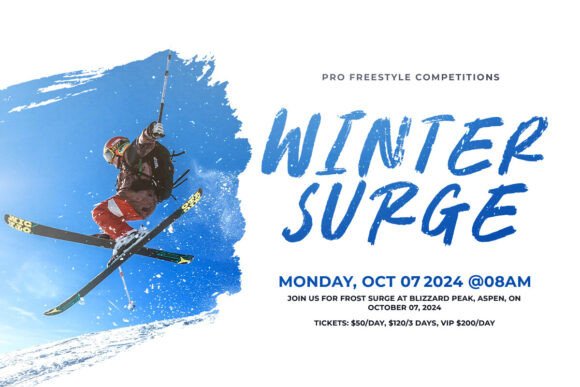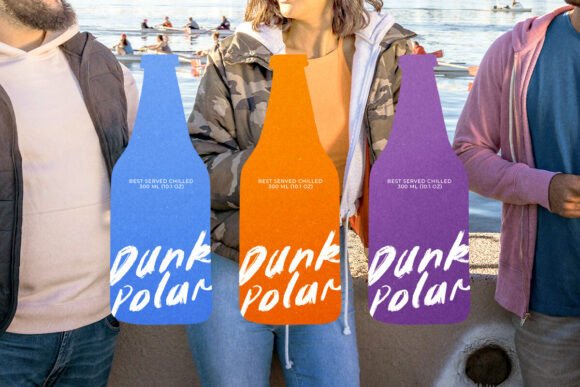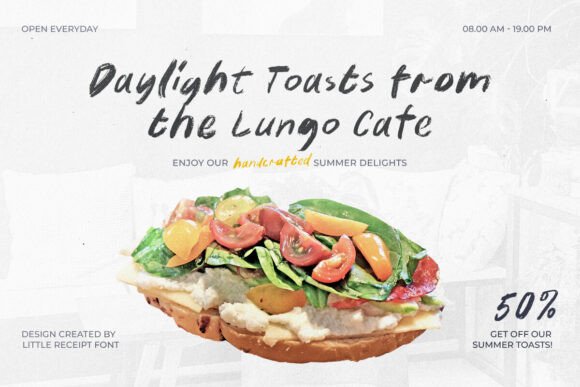
Introduction to Little Receipt Font
Remember the moment when a simple, handwritten note turned into a beautiful piece of art? The imperfections and quirks in the handwriting made it uniquely special and relatable. Designers, have you ever struggled to achieve that same organic feel in your digital designs? Look no further than the Little Receipt Font, a free download that will elevate your creative project to new heights.
With its unique combination of rough and dry brush styles, the Little Receipt Font is a game-changer for designers looking for a high-quality design resource. This versatile font supports multiple languages and offers three variations for each character, automatically changing when you activate the Contextual Alternates in OpenType features. This means you can create stunning designs with a transparent background, perfect for quotes, logos, or any other creative project.
Key Features of Little Receipt Font
- High-quality, vector-based font design for professional use, ideal for creative projects requiring a unique touch.
- Features a transparent background, allowing for seamless integration with various design elements and backgrounds.
- Comes in a single weight, making it easy to use and customize for various design applications.
- Designed to be scalable, with high resolution (300 DPI) for use in print and digital media.
- Perfect for designers seeking a distinctive, modern look for their creative projects, including business cards, brochures, and more.
Honest Review: Little Receipt Font
I recently had the chance to work with Little Receipt Font, and I must say it’s been a game-changer for my creative project. This font is a great design resource that adds a touch of authenticity to any receipt or invoice template.
Here are some things that work well with Little Receipt Font:
- ✨ Great for receipts and invoices: The font is specifically designed for these types of documents, making it a great choice for designers who need to create professional-looking templates.
- ✨ High-quality design: The font is well-designed and looks great on screen.
- ⚠️ Limited character set: The font only includes a limited number of characters, which may not be suitable for all design projects.
- ⚠️ Not suitable for large-scale use: While the font is great for small-scale design projects, it may not be the best choice for large-scale use or commercial projects.
Overall, I’m really impressed with Little Receipt Font. It’s a great design resource that’s perfect for designers who need to create professional-looking receipts and invoices. With its transparent background, high-quality design, and free download, it’s a must-have for any designer’s toolkit.
Little Receipt Font
The Little Receipt Font is a versatile, high-quality design resource ideal for various creative projects. Its unique style and transparent background make it perfect for adding a touch of elegance to your designs.
Tips for Getting the Most Out of Little Receipt Font
Use the font in combination with other design elements to create a cohesive look. Experiment with different font sizes and colors to add depth and visual interest to your design.
The Little Receipt Font is perfect for a variety of creative projects, including:
- Invitations and event materials
- Product packaging and labels
- Branding and marketing materials
- Personalized gifts and stationery